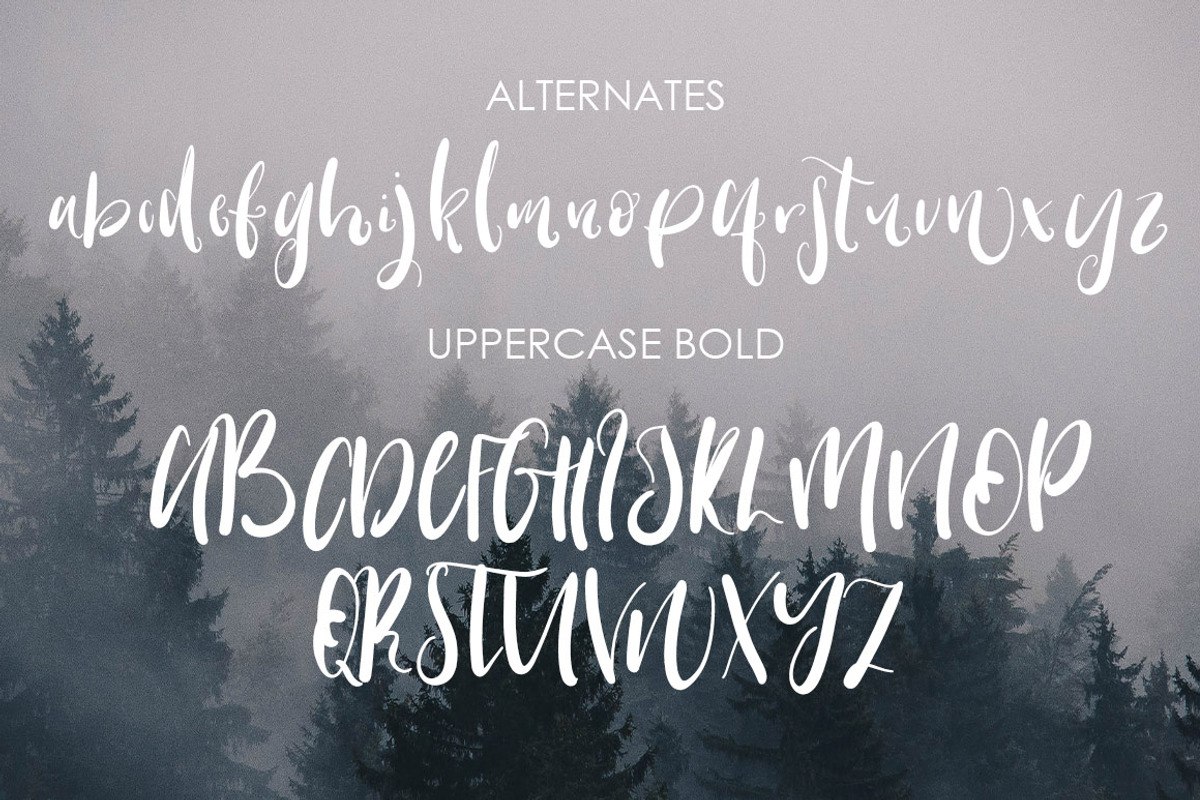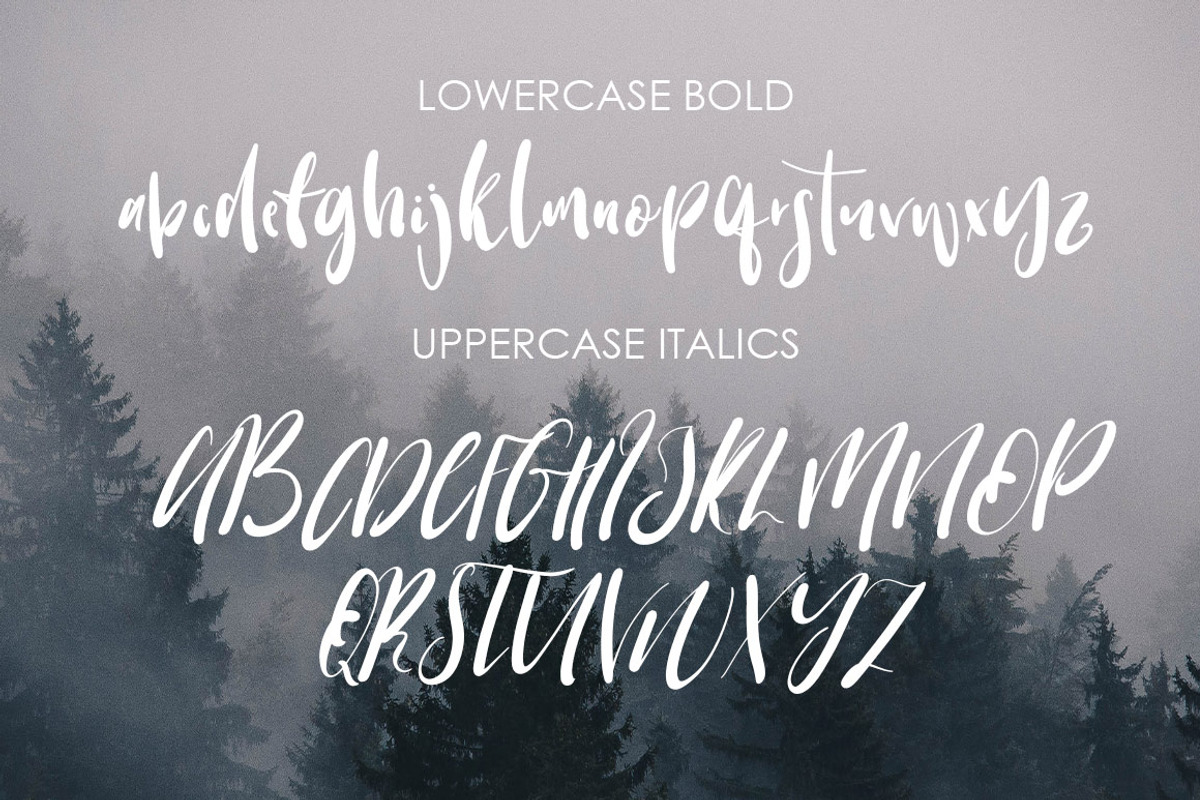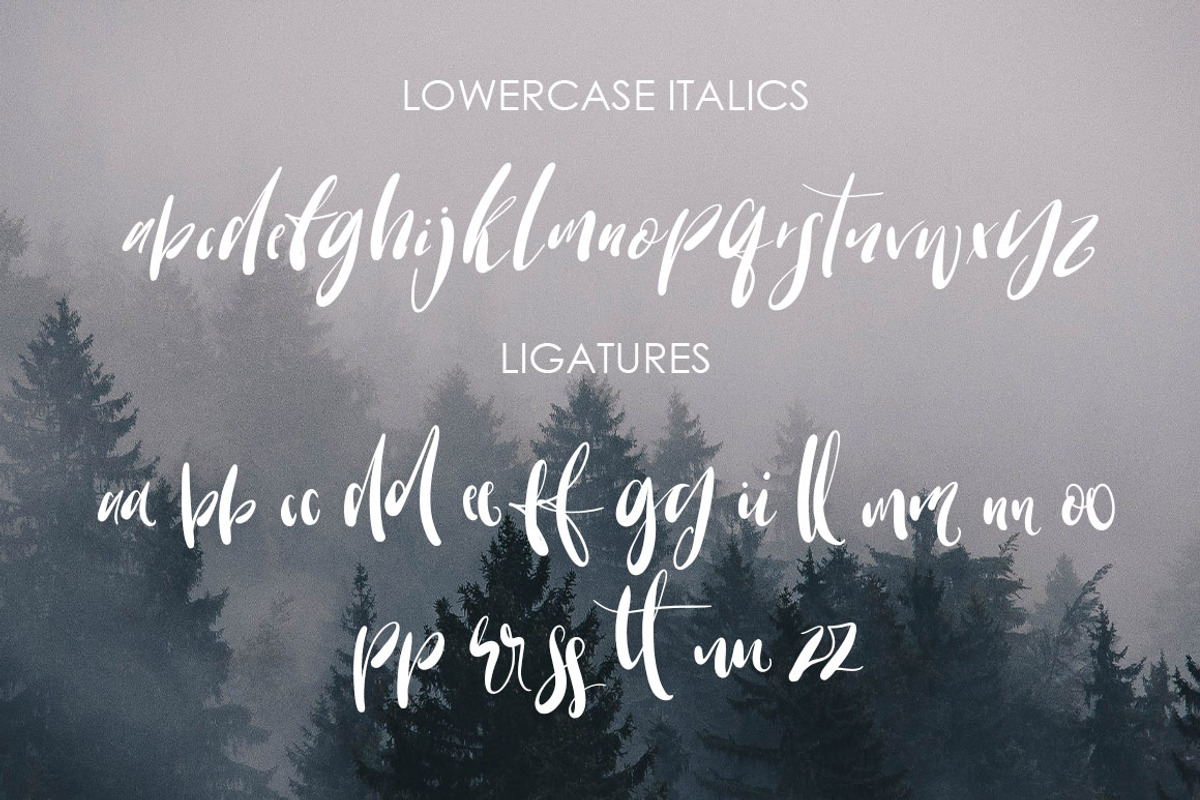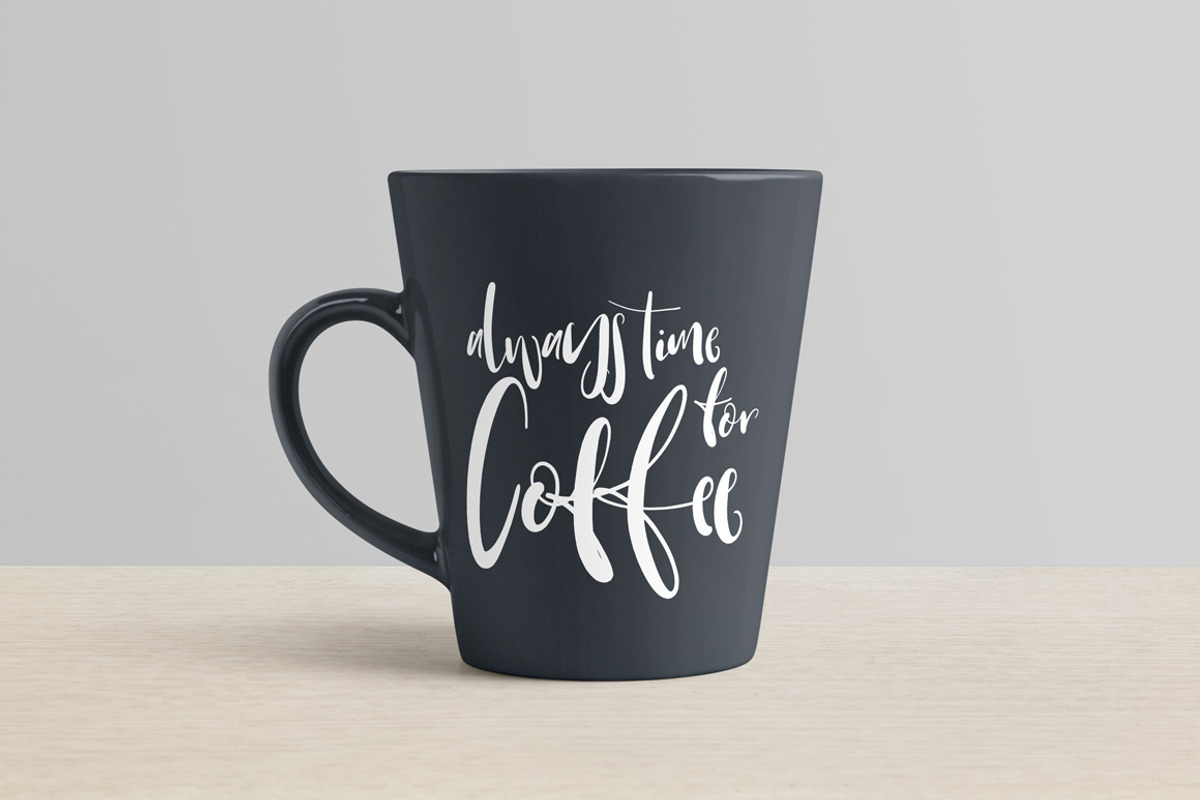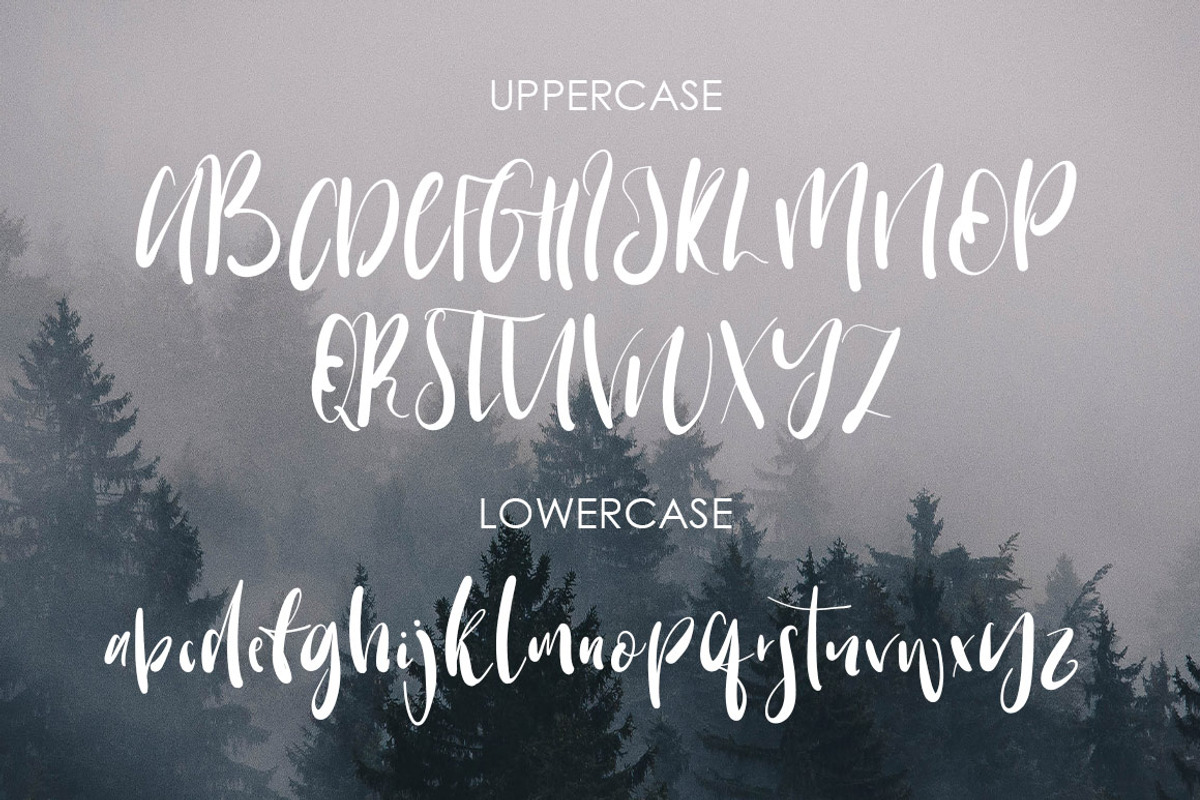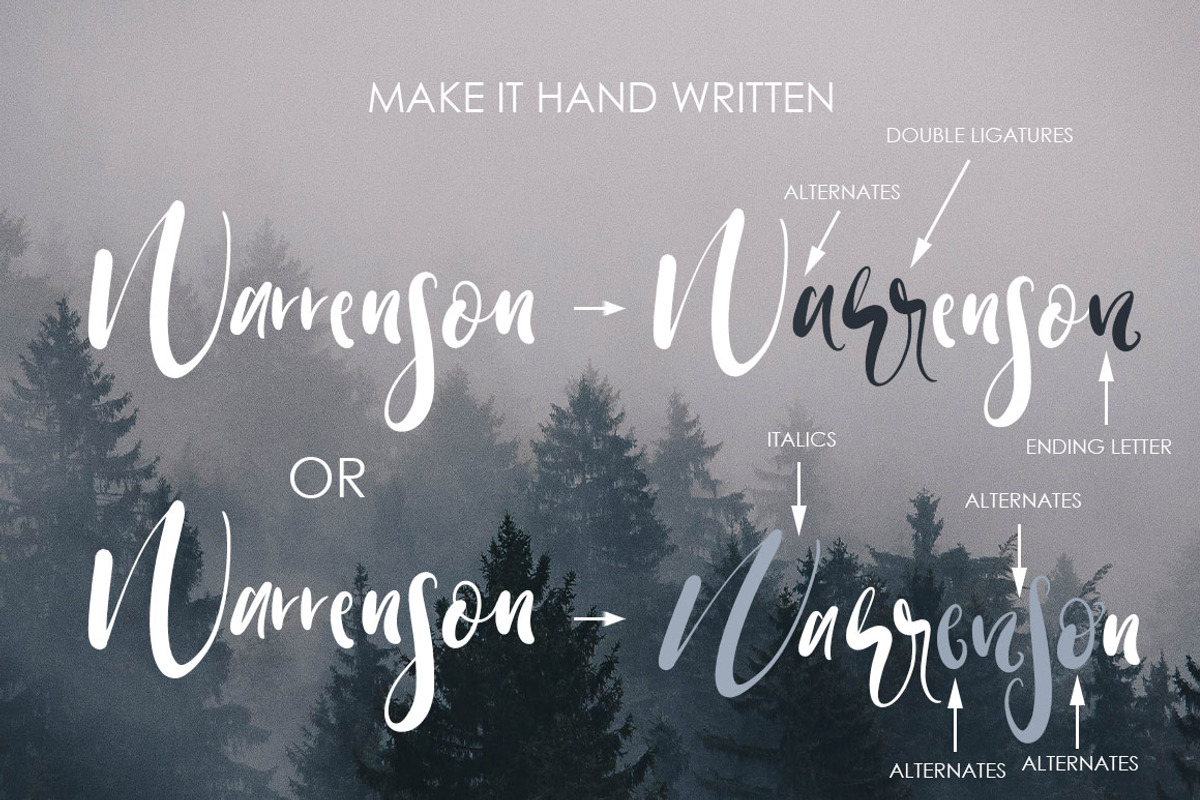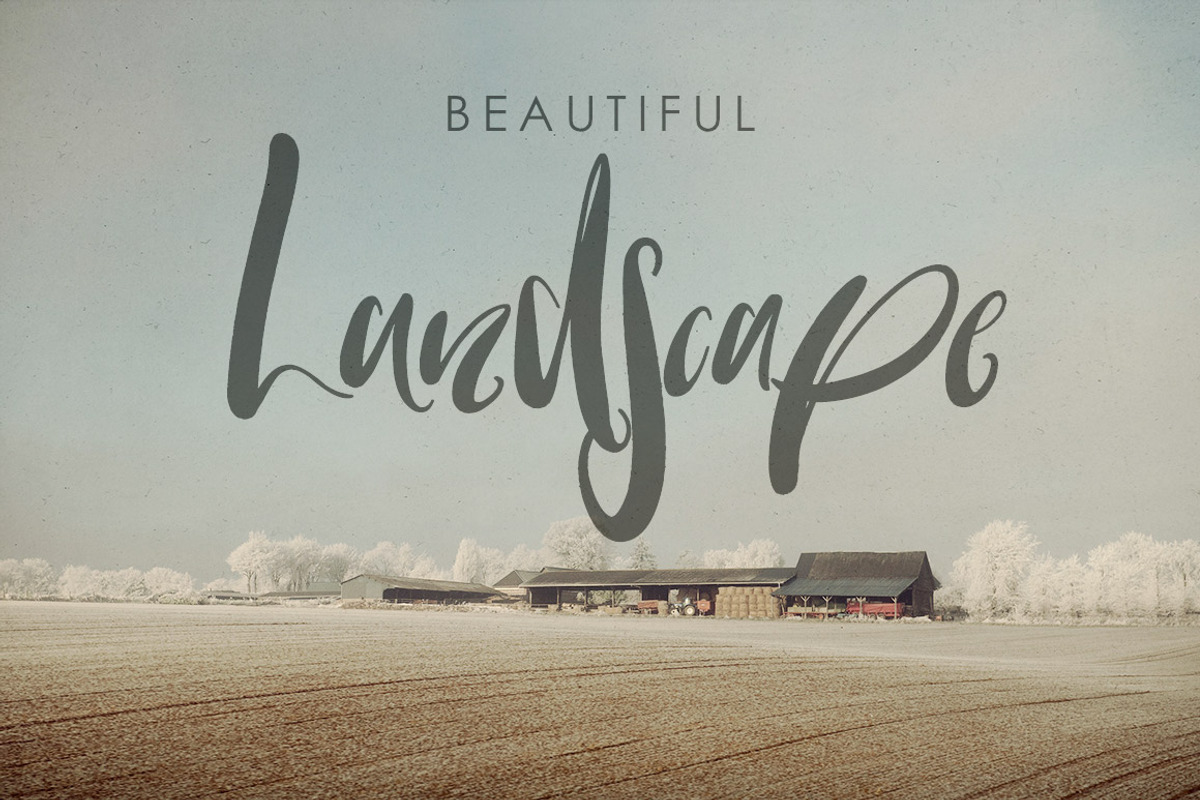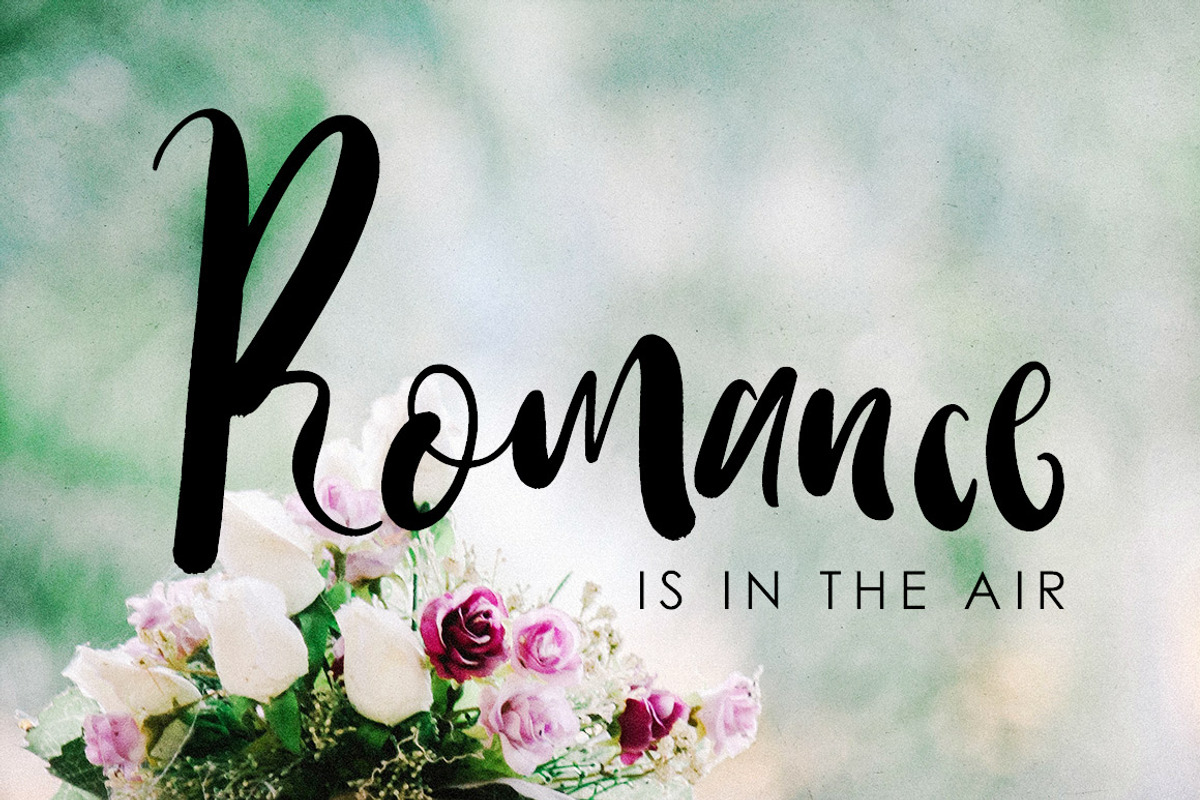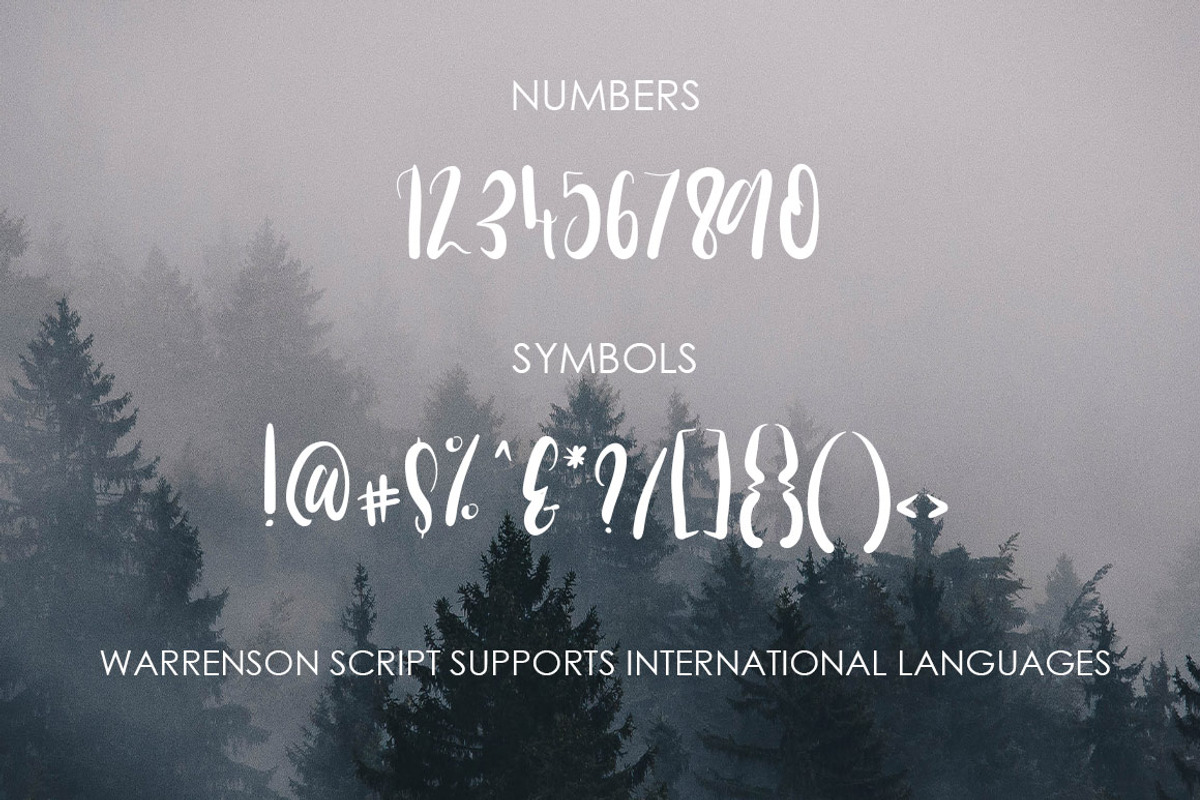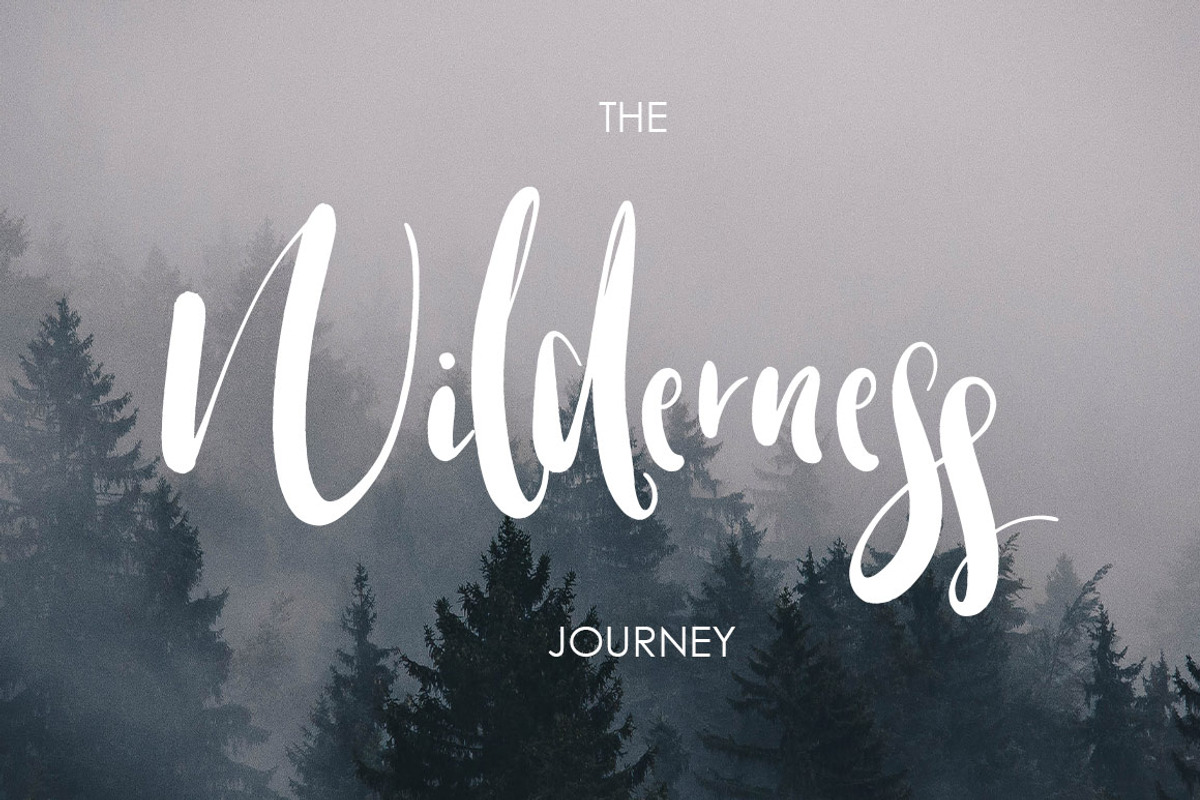
Warrenson Script Font
And another awesome font from Creativeqube - Warrenson!
Warrenson has so much adorable bouncy character, with a smooth outline and bold thickness.
Included in the font files are lots of awesome alternates, bold and italic versions, all helping create that amazing hand lettered look.
Warrenson supports international languages.